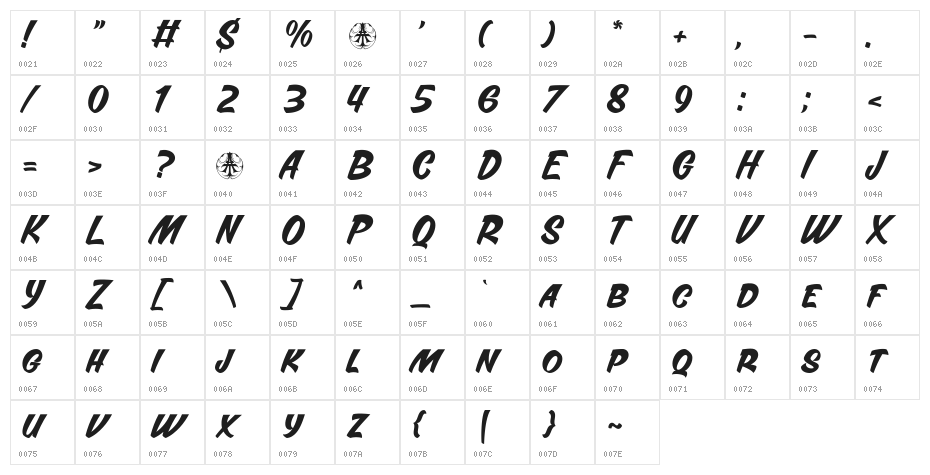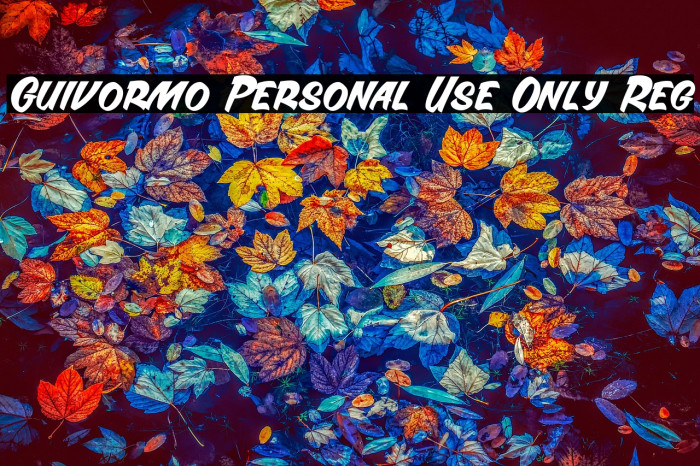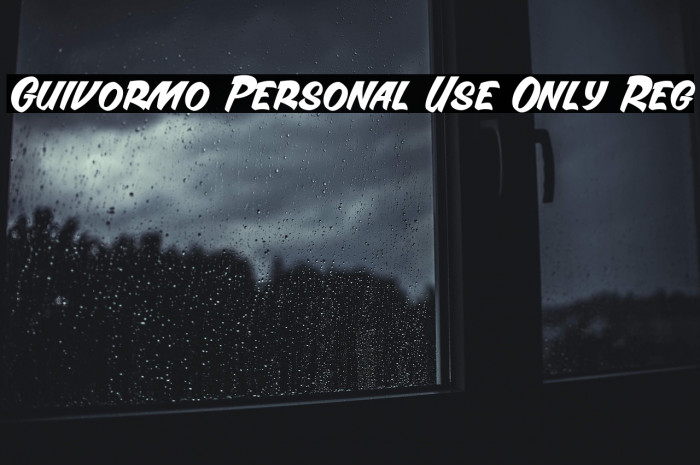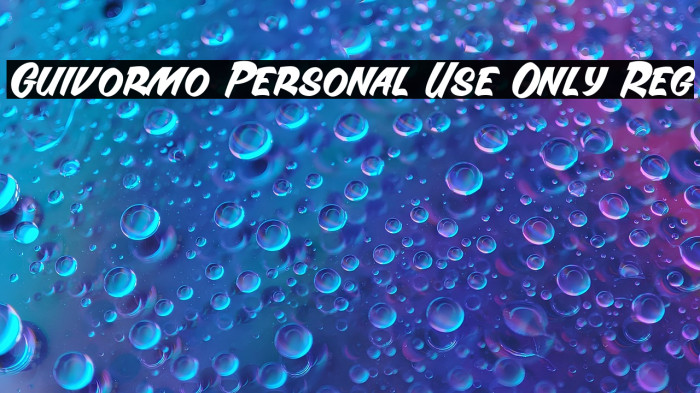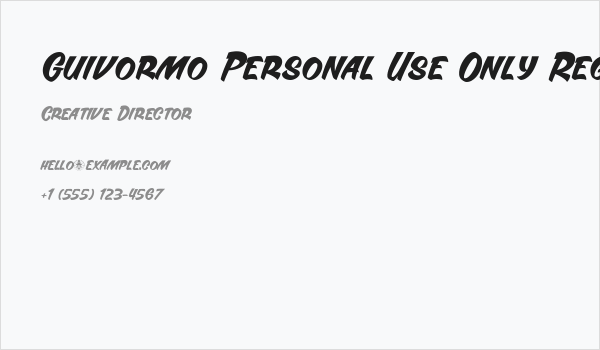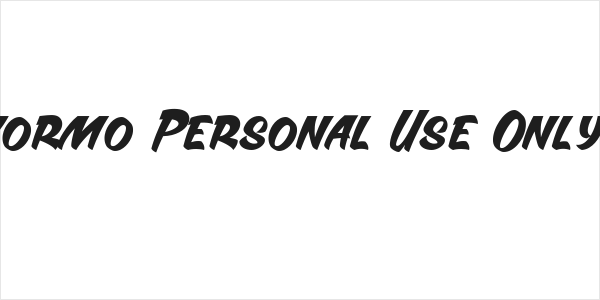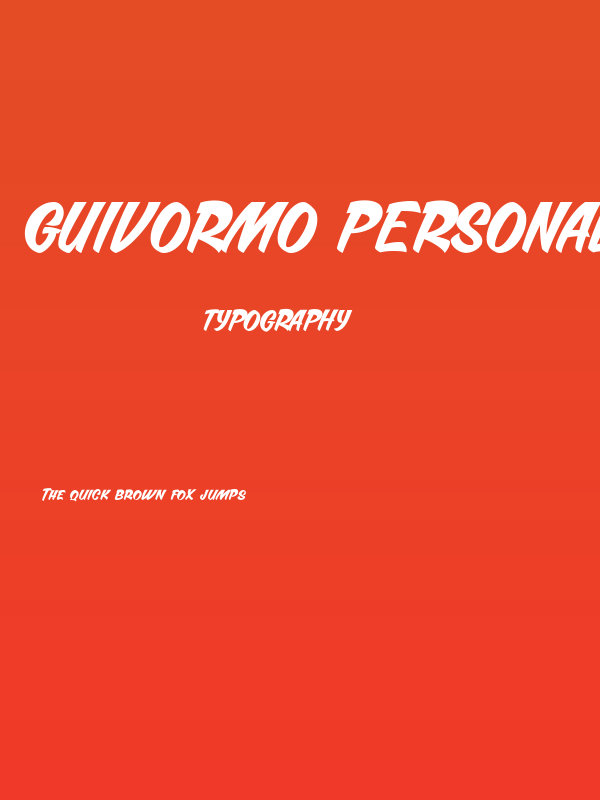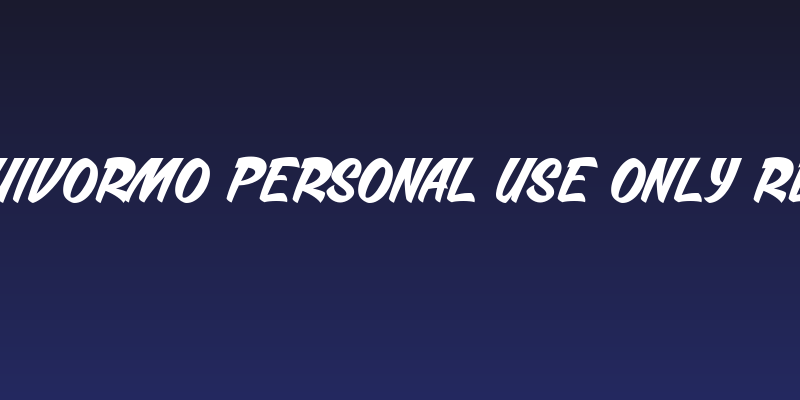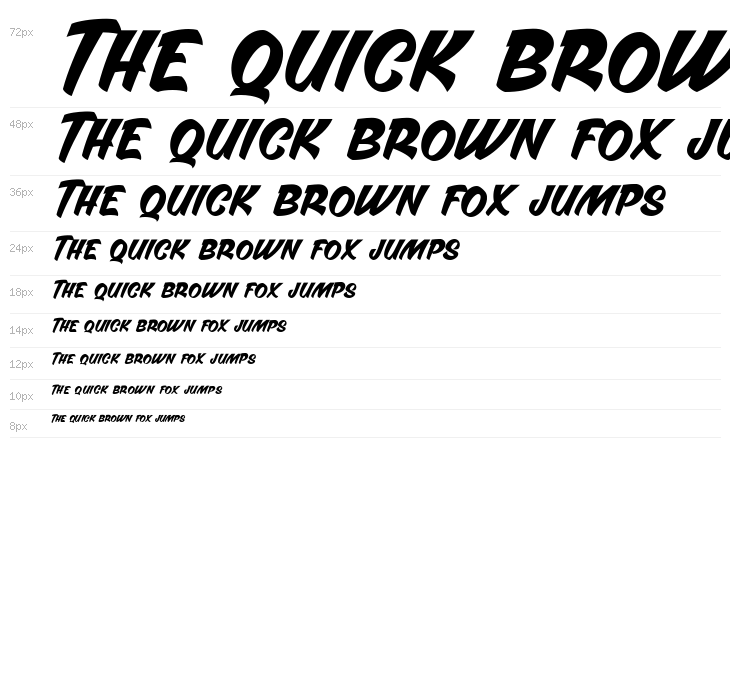
Guivormo Personal Use Only Reg Font
Guivormo Personal Use Only Reg Description
This font features a bold and dynamic script style with a strong presence. The characters are designed with a slight slant, giving them a sense of movement and energy. The strokes are thick and consistent, providing a robust and impactful appearance. The uppercase and lowercase letters maintain a cohesive style, while the numerals and special characters complement the overall design. The font's playful yet assertive nature makes it suitable for projects that require a touch of personality and flair.
| Proposed Projects | Ideal for branding, posters, headlines, and creative designs that require a bold statement. |